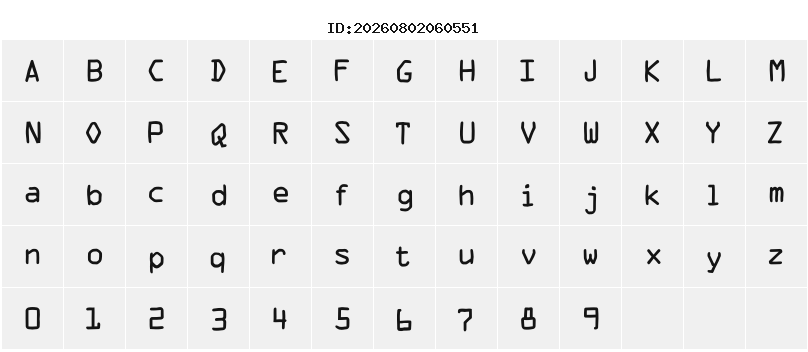
About MKOCR.ttf
MKOCR.ttf is a modern, elegant sans-serif font designed for ultimate readability and visual harmony. Perfect for branding, headlines, web design, and print materials.